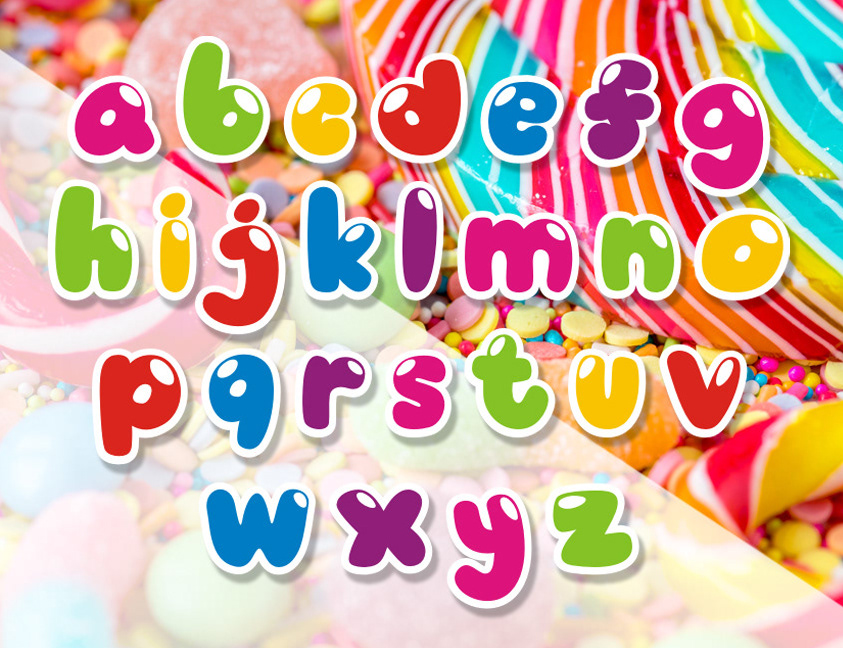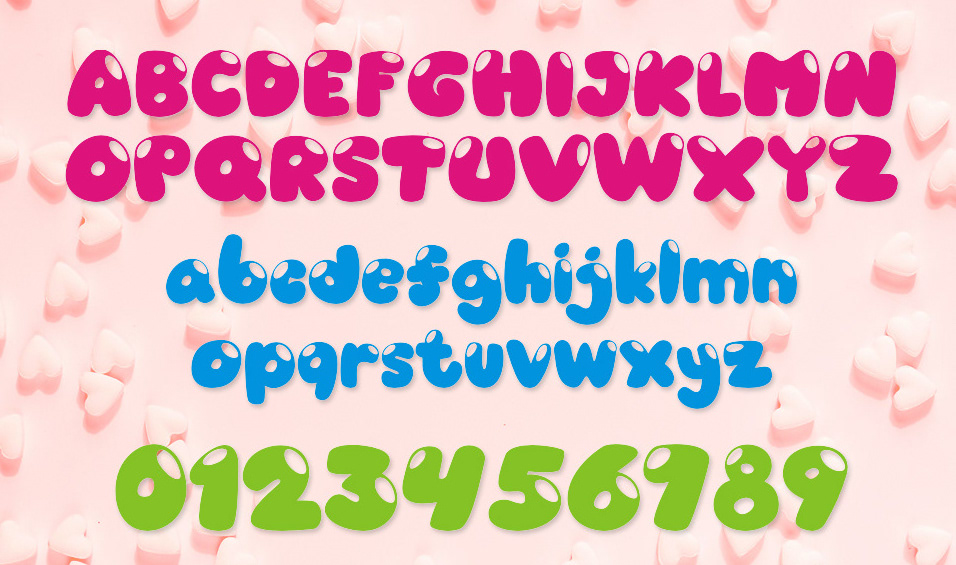
Vable Studio [Azka Ryzki]
Or Azka Rizki. Solo, Indonesia-based designer, b. 1983, of the curly casual monoline typeface Serasa (2018), the bubblegum / cartoon fonts Candyshop (2018) and Balonku (2018), and the handcrafted typeface Learn To Fly (2018).
Typefaces from 2019: Horobi (a puzzling brush typeface), So Young.
Typefaces from 2020: Plastic Love (an all caps cartoon font), Matsuri (a textured typeface with tribal patterns), Lukalama (a dripping paint font), Blue Night (heavy cartoon font in all caps).